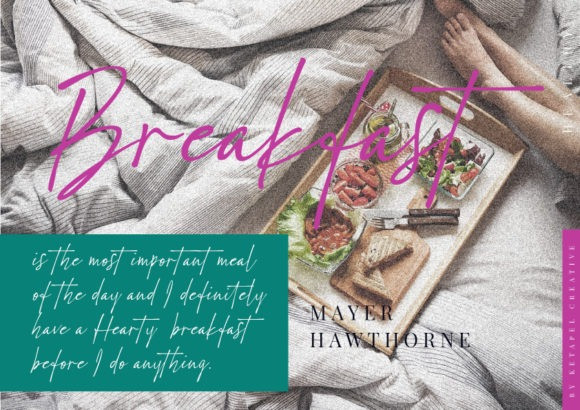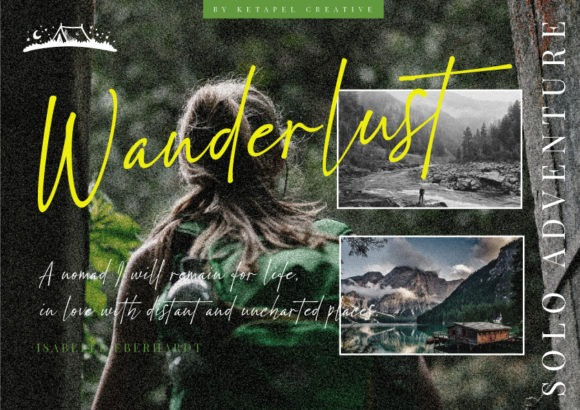
Mottingham Calligraphy Font
The Mottingham is a stylish handwritten script font. It’s classic look and dancing baseline makes it perfect for adding an elegant touch to your designs.
It can be used for various purposes such as headings, signatures, logos, wedding invitations, t-shirts, letterheads, signage, labels, news, posters, badges, and much more!